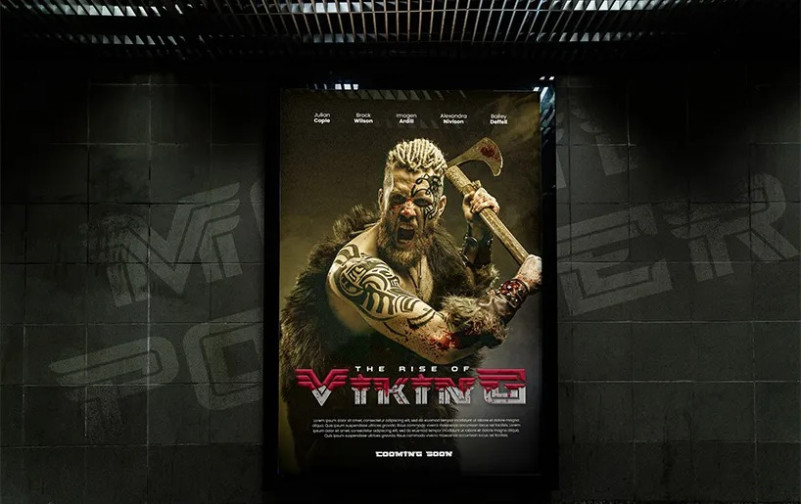
Wolfalcon Font
Wolfalcon Display Font is a display font influenced by The first Wonder Woman movie poster, not the sequel (Wonder Woman 1984). Technically, we can’t call it Wonder Woman 1984 font.
Wolfalcon is versatile. We can use it for almost any display text or even product text. Also, this font is perfect for logos, product containers, and posters.
Due to its unique and sci-fi-like looks, this font is a good match for comic book cover titles, game cover titles, or even movie titles. This font has a variety of vibes or feels depending on how you use this Wonder Woman font.